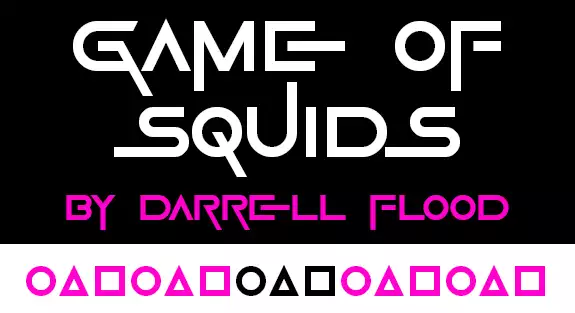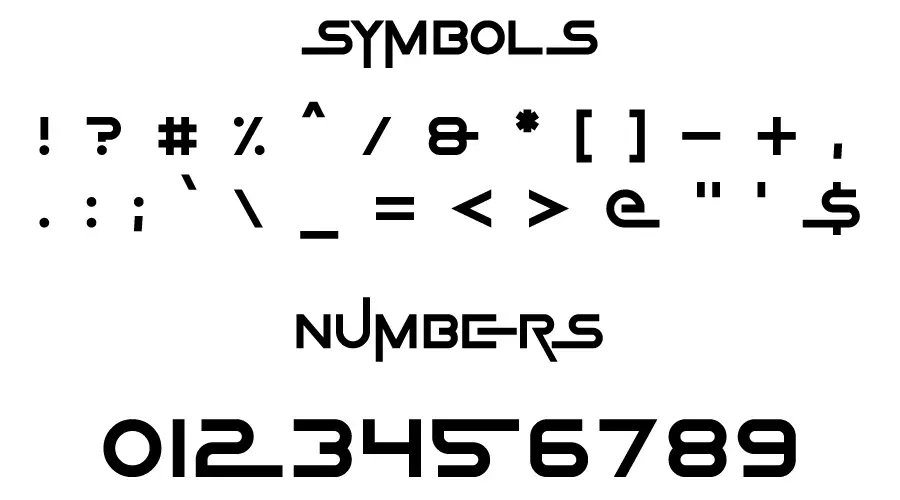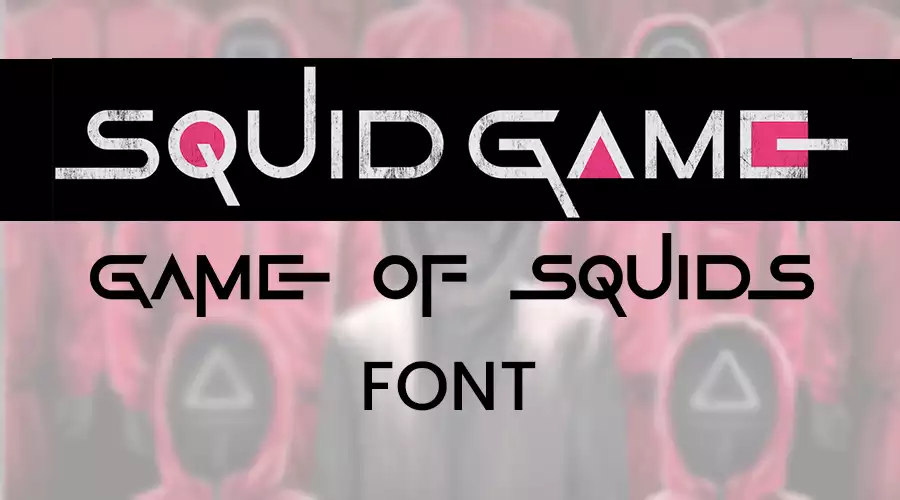
What is Squid Game Font?
The Squid Game font comes from the title lettering font used in the title of a South Korean action-suspense survival drama series named “Squid Game,” which was released on September 17, 2021, through Netflix.
The font is called “Game of Squids,” and it is a fan-made free font designed by Darrell Flood and published in 2021. It is inspired by the “Squid Game” series logo but is not endorsed by Netflix or anyone else because the show’s designer created a custom logo.
The font includes numerals, punctuation, symbols, and shapes commonly found in the TV series (square, circle, and triangle).
| Font Family Name | Game Of Squids |
| Font Type | Display |
| Designed by | Darrell Flood |
| Release date | 2021 |